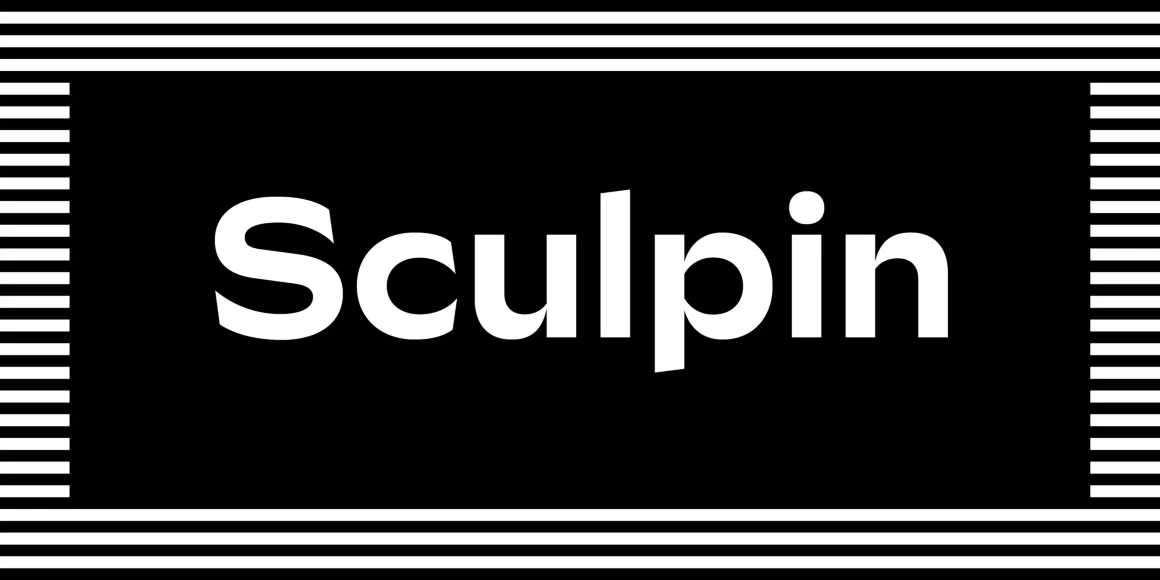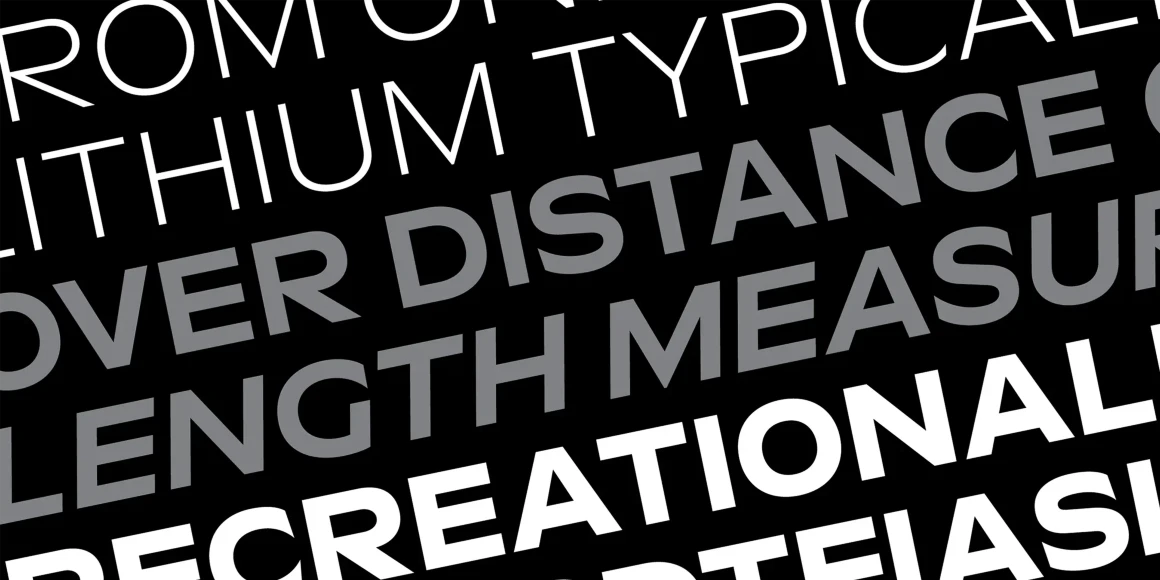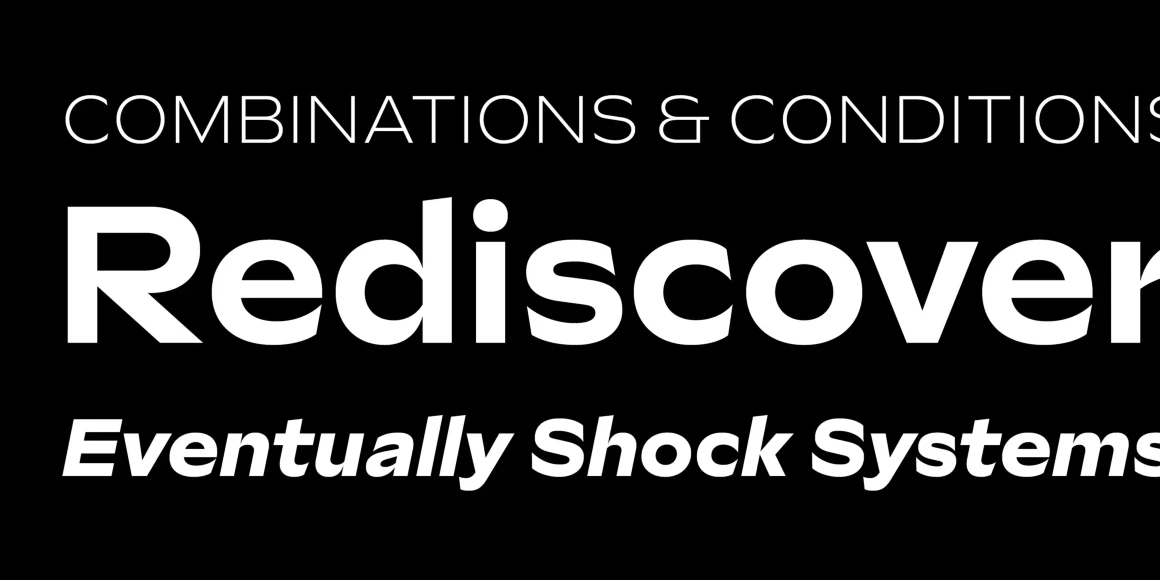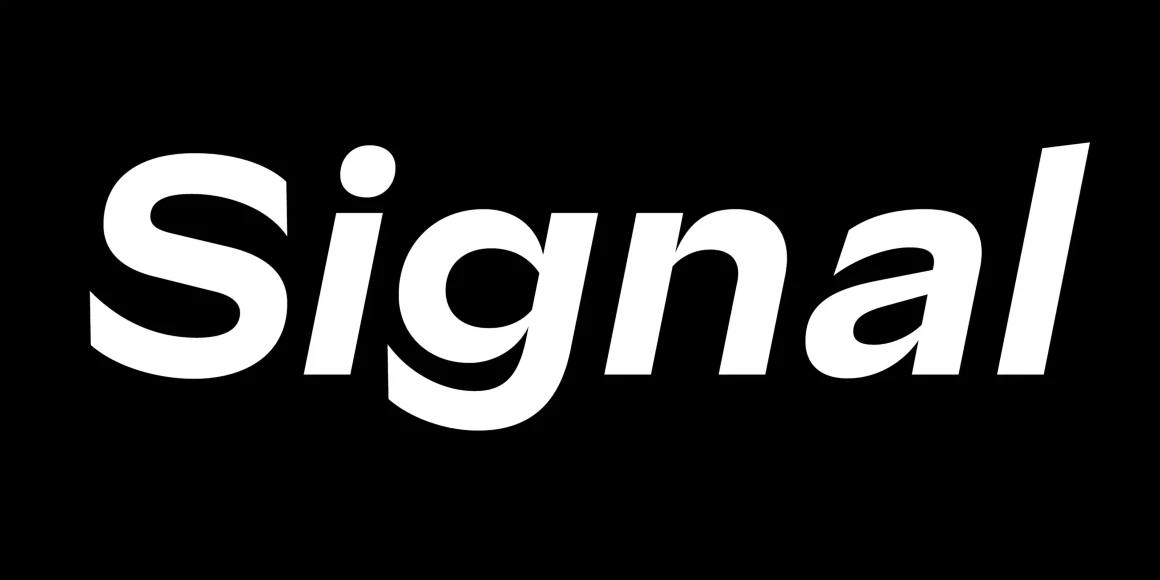
Sculpin
From Process Type Foundry
Sculpin is a typeface inspired by the finishing details of square-edged tools like the chisel and brush. These details — re-interpreted as high contrast joins, sharp cuts, and reverse terminations — form a collection of related cues that help thread the letters of Sculpin together. The resulting typeface is a stew of American sign painting, Swiss Modernism, and stone carving rendered to life with Bézier curves. The wide-bodied family is five weights with matching italics and a weight-axis variable font.
Designed by Eric Olson